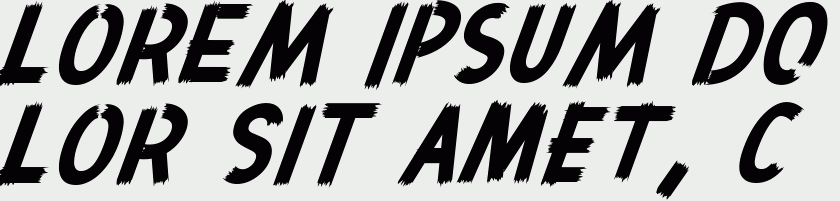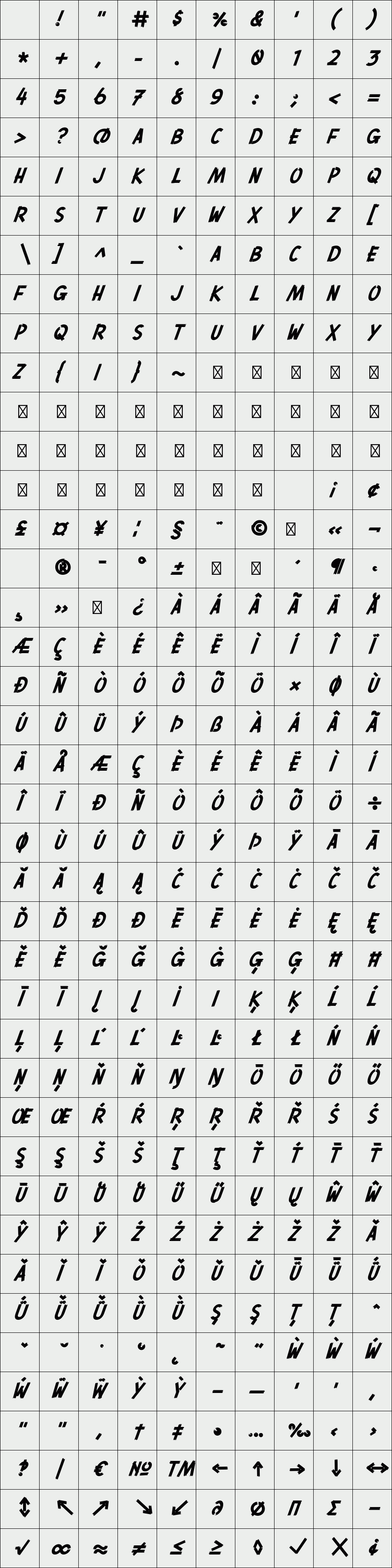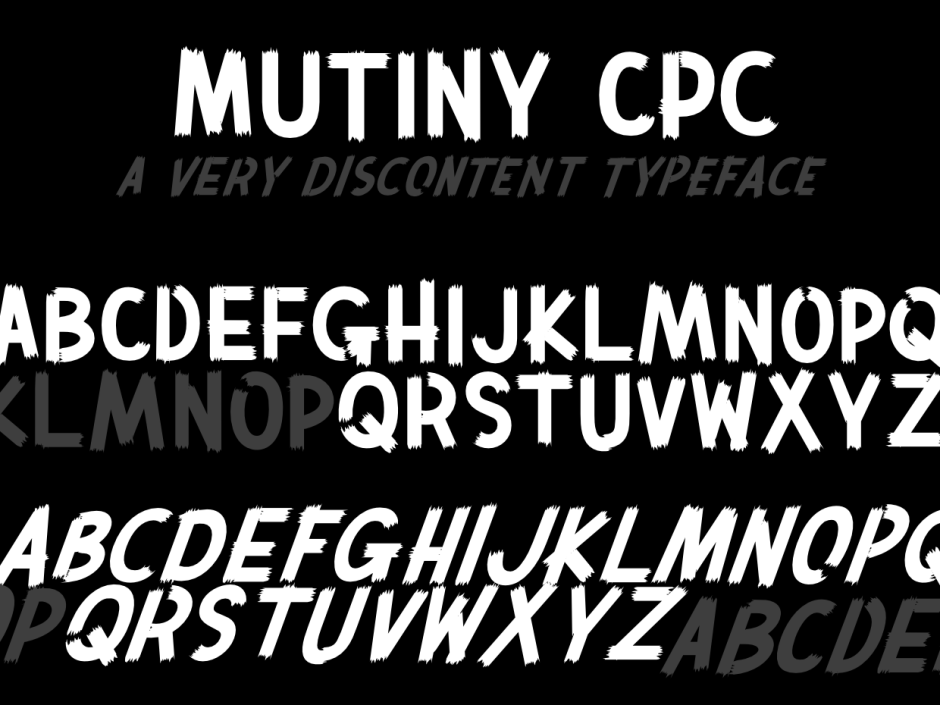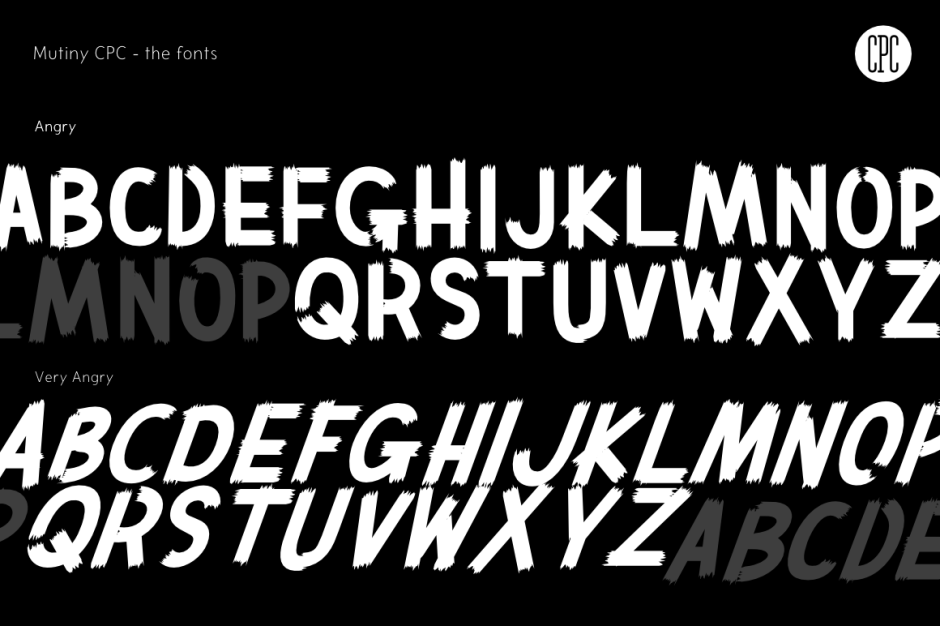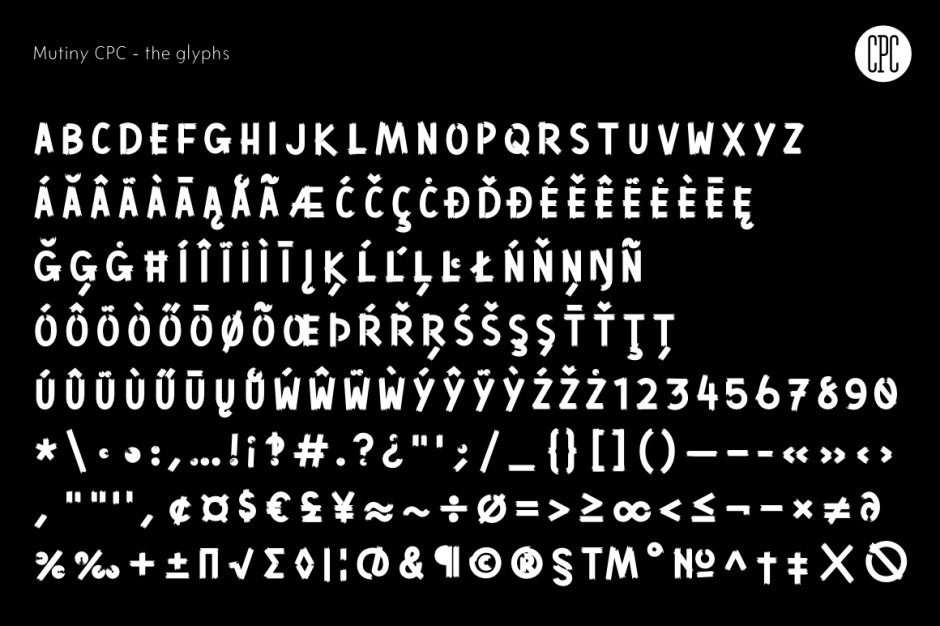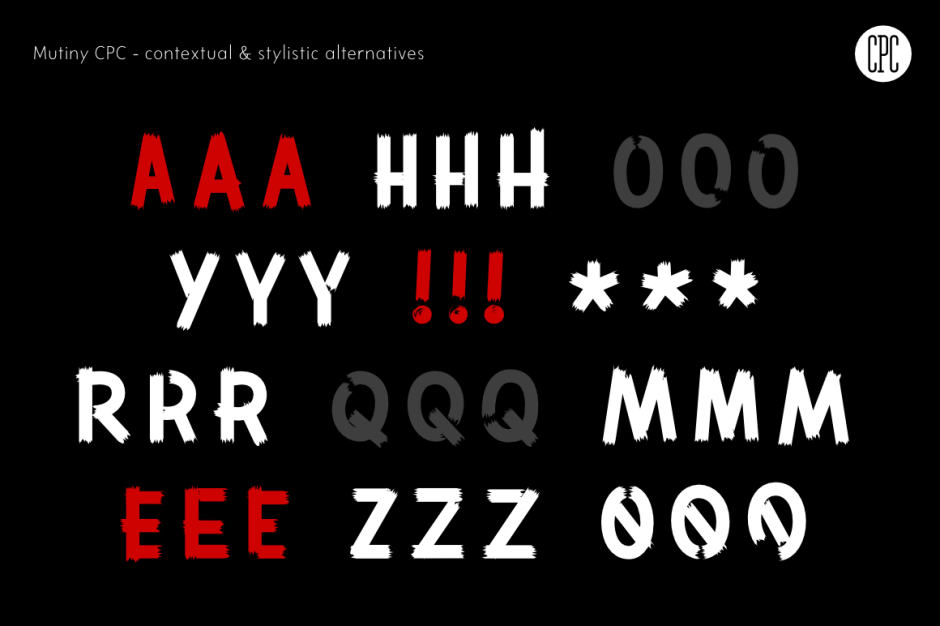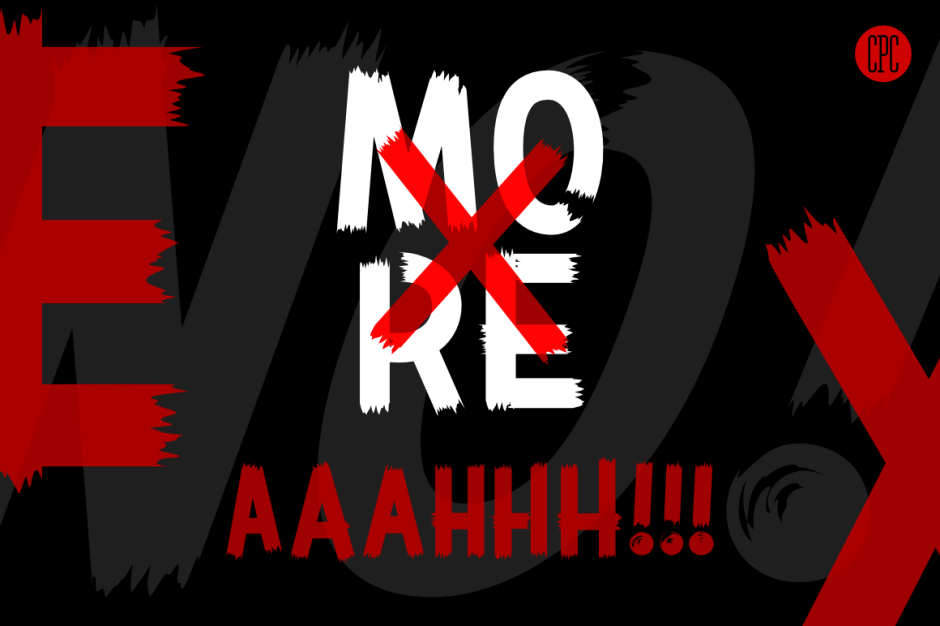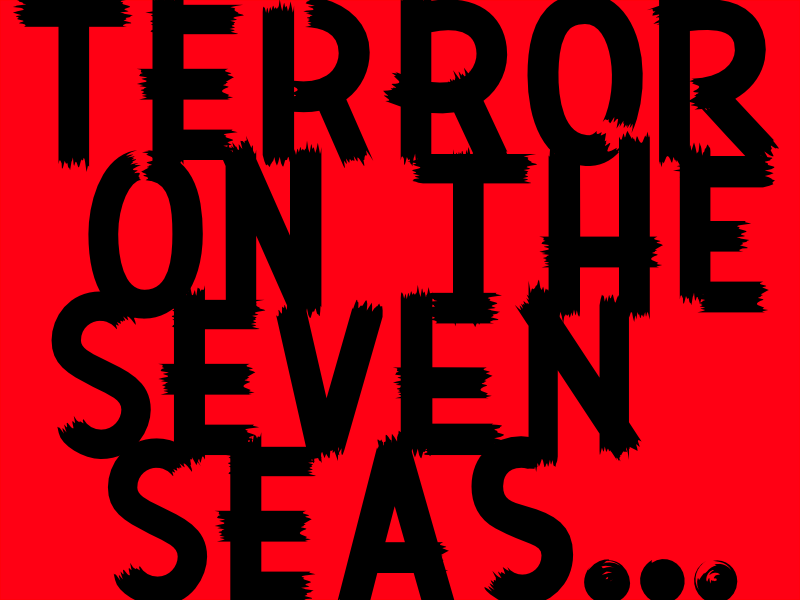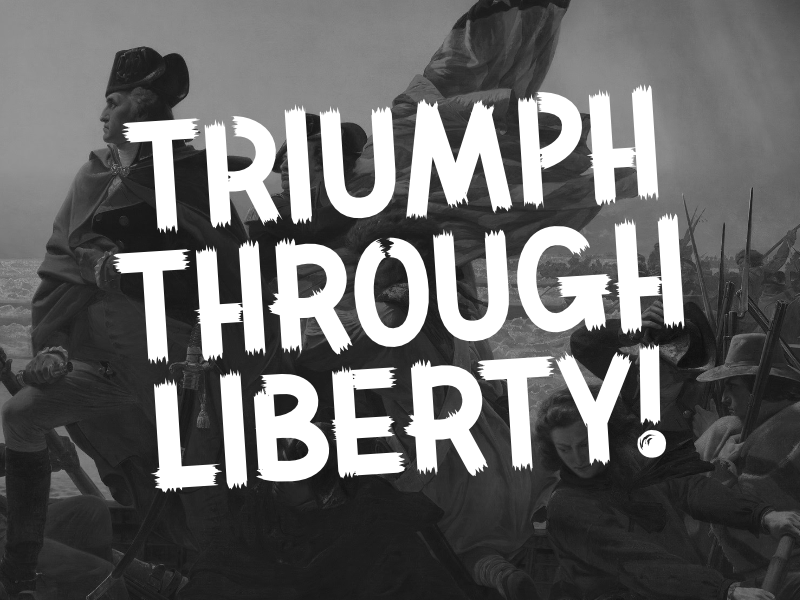
Mutiny CPC
/ Mutiny CPC - Very Angry
Have you ever felt angry, sick and tired of being sick and tired, or just completely misunderstood? Show how you feel in a font that are pissed off just as much as you are. This typeface has broken a few of your precious rules and gives you alternative options. I'm at my wits end and so I made a very discontent typeface.
Features
- Angry and Very Angry styles
- Contextual and stylistic alternative glyphs
- Big giant capital letters
- Demanding numbers
- Variously unhappy symbols
Ideas for Usage:
- Giant poster boards on sticks
- An angry letter
- A passive aggressive note to co-wokers
- Your punk rock band logo
- Documentary film titles
- Posters